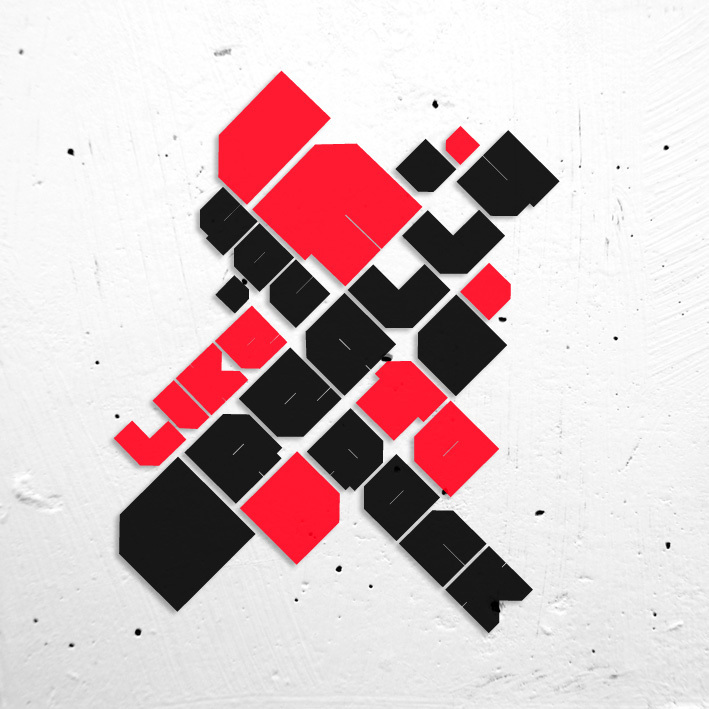
Rock da Fonky Bit is a free futuristic display font built from massive geometric forms. Sharp diagonal cuts and slim internal slits break up the broad, nearly solid letters. The silhouette feels architectural and severe.
Its slab-like shapes can merge with geometric illustration, turning lettering into part of a machine, building, or abstract pattern. That approach suits electronic music posters, game title screens, and experimental fashion graphics. In editorial design, it can give a technology feature or architecture spread a forceful masthead.